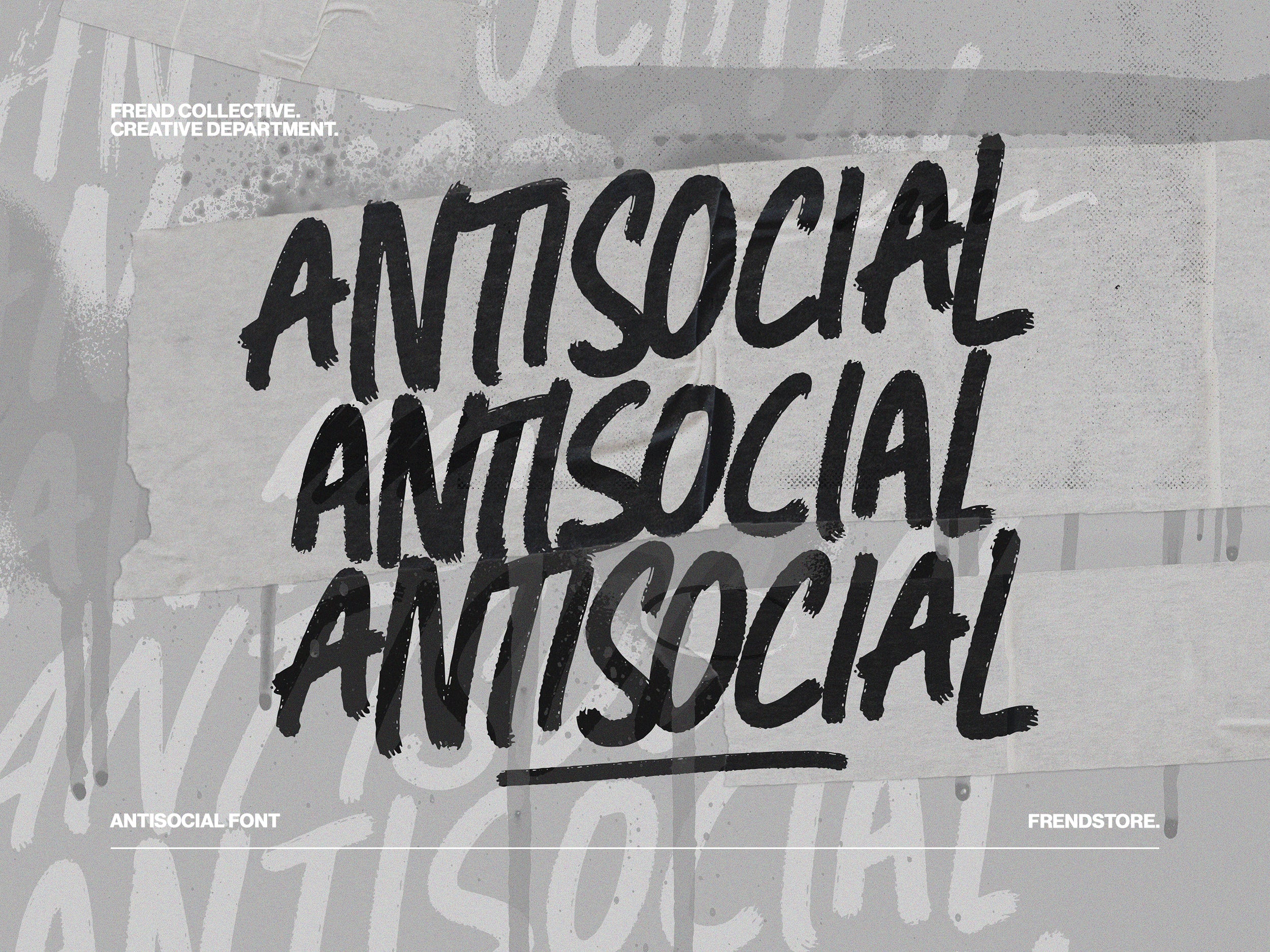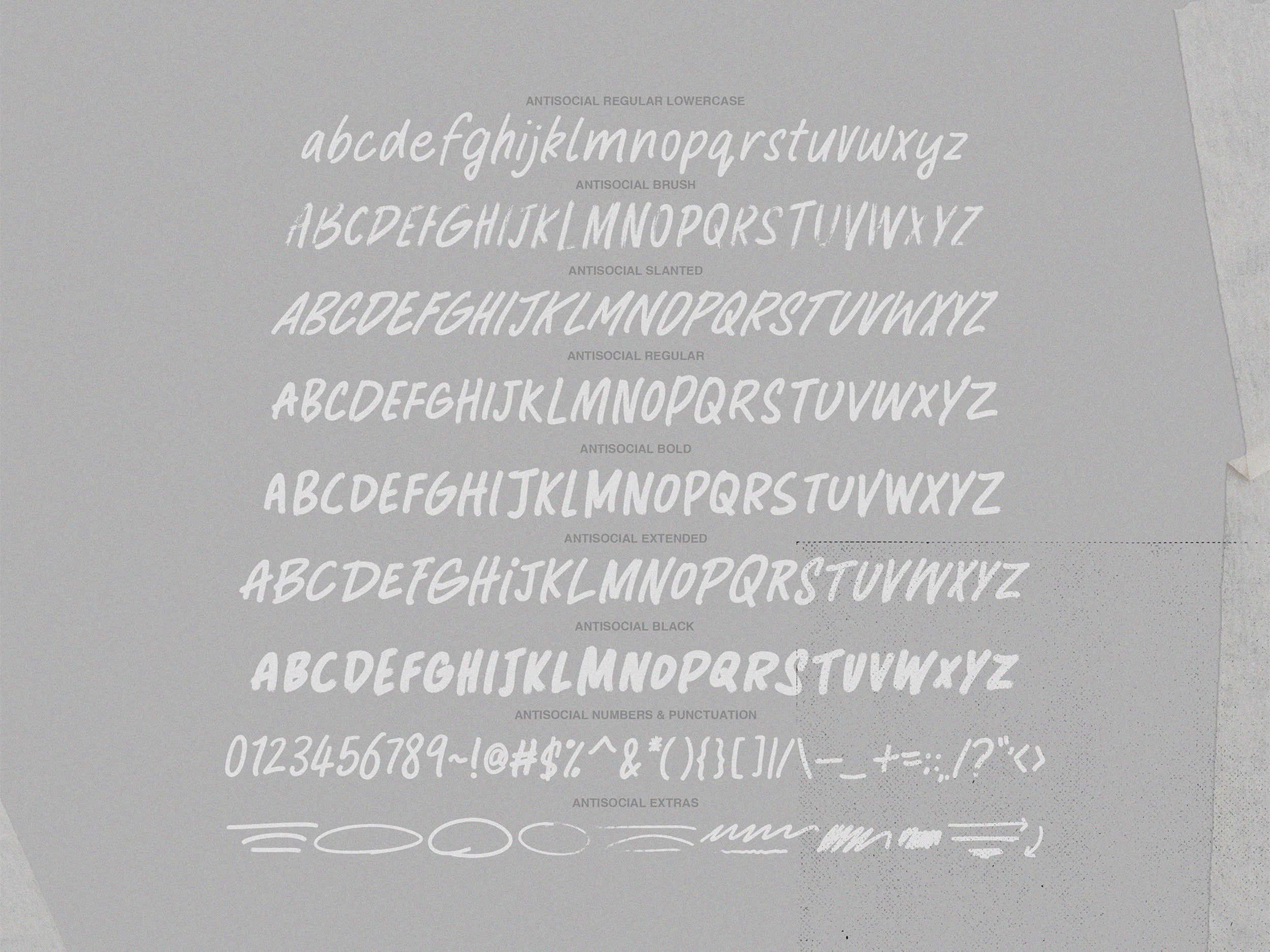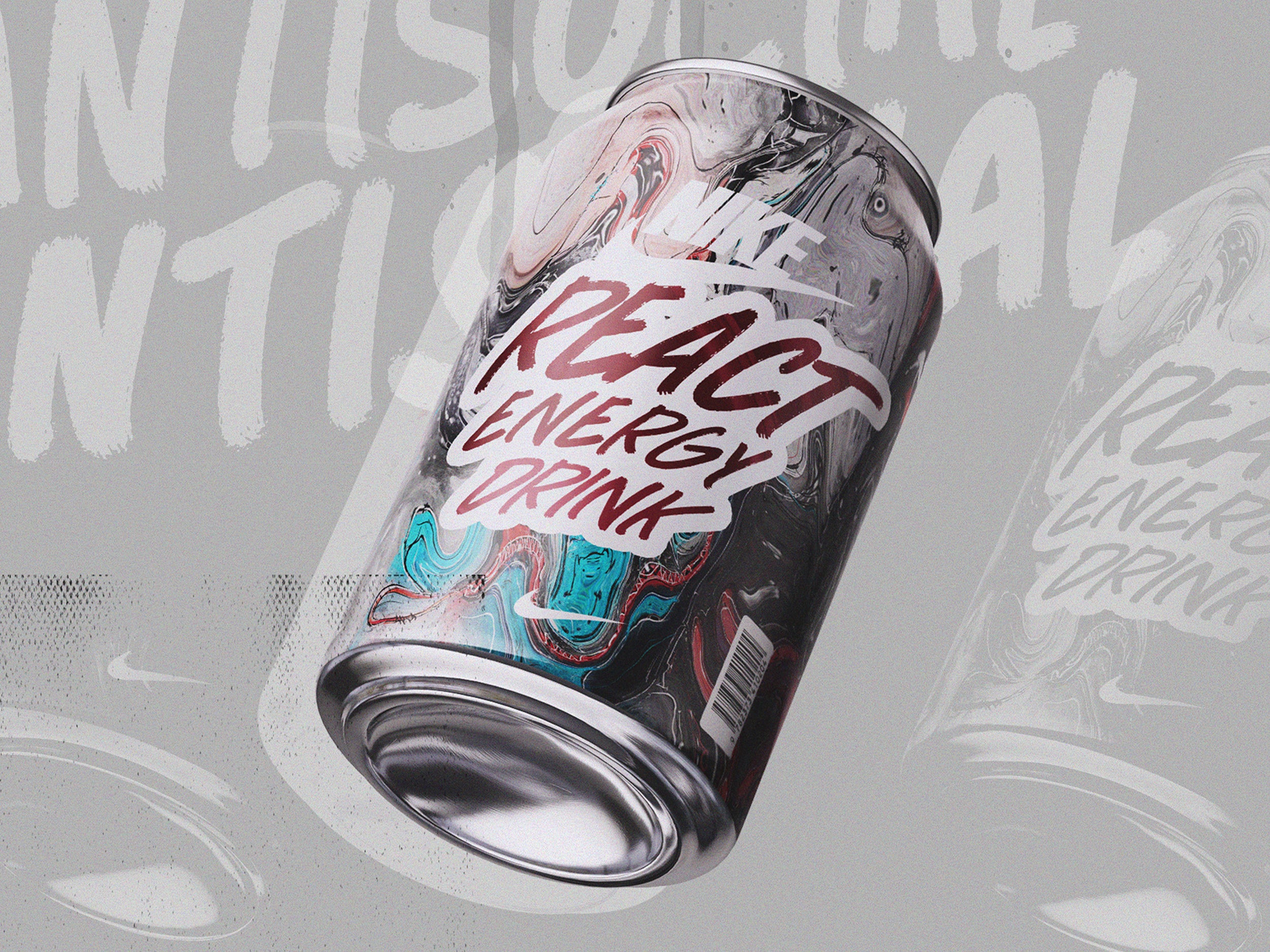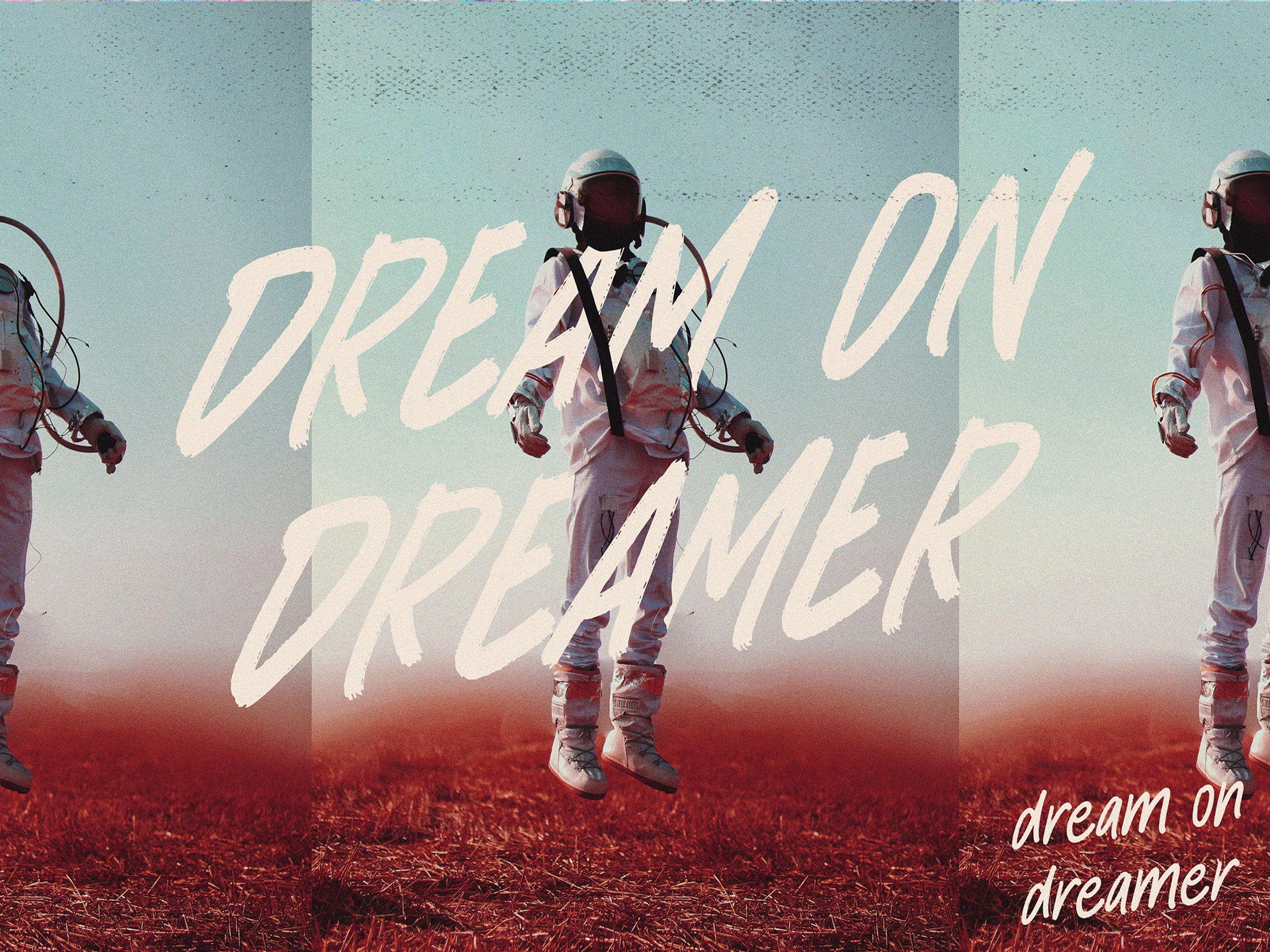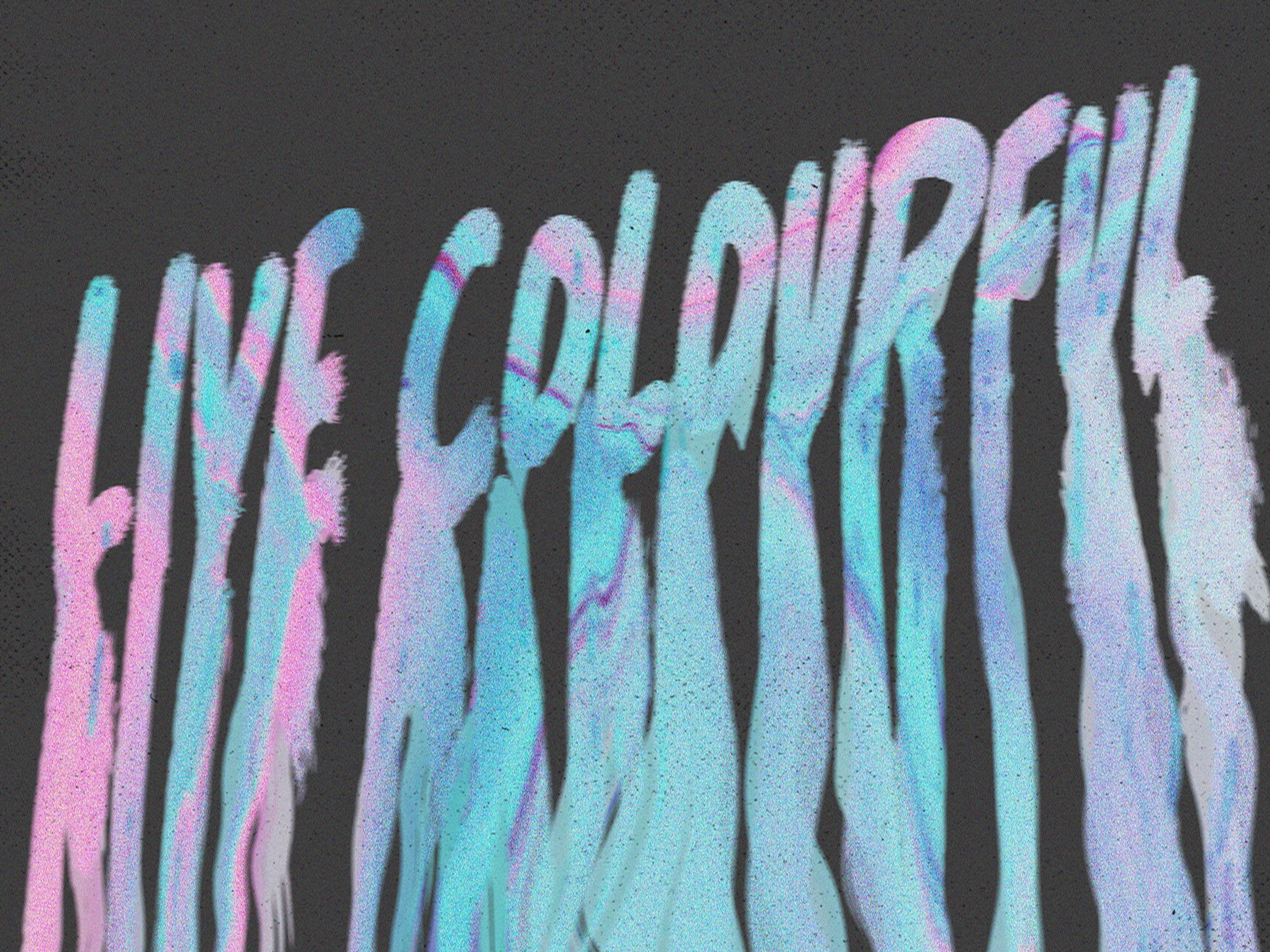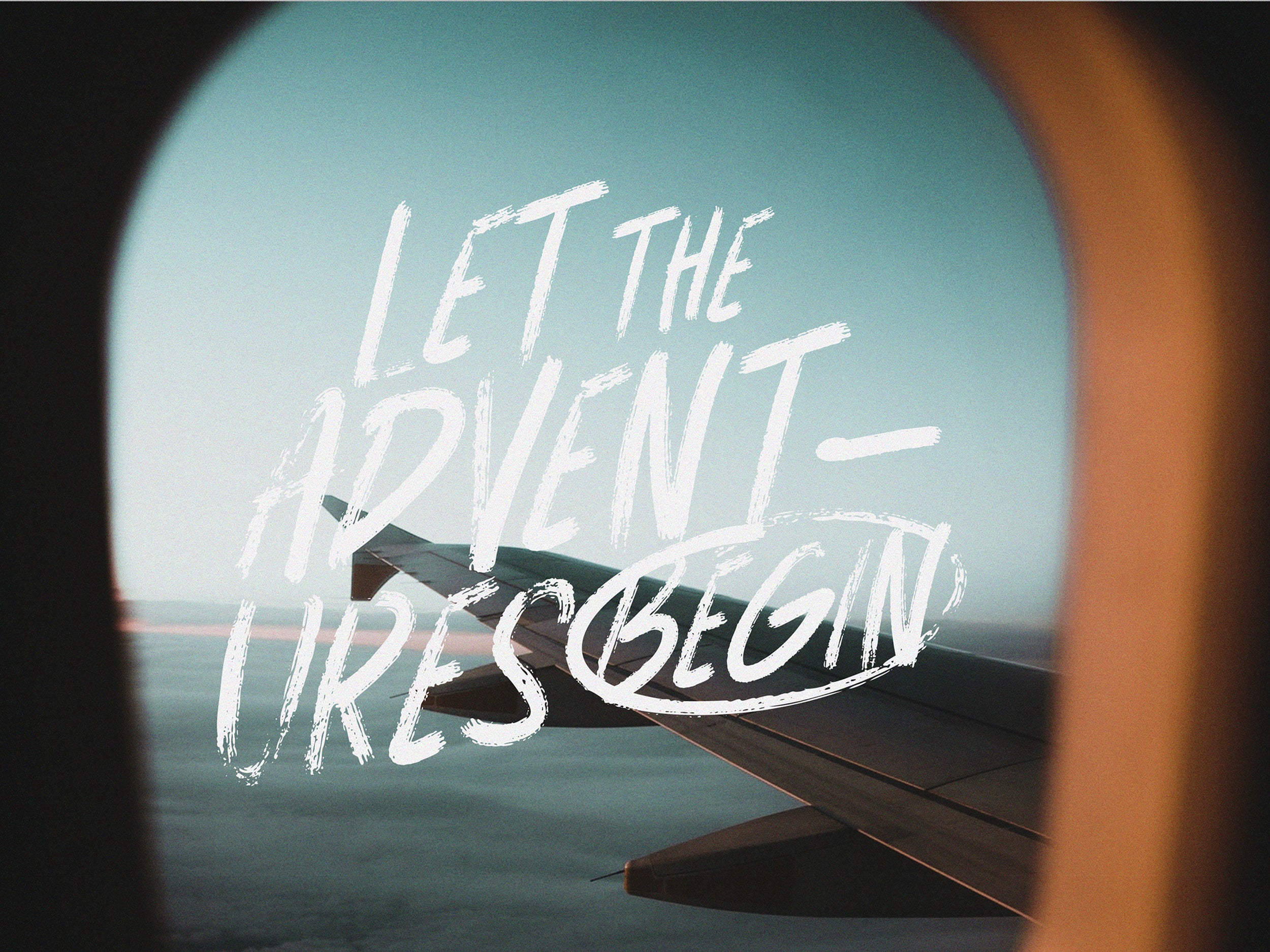
ANTISOCIAL FONT
Introducing Antisocial Font Collection.
Antisocial font collection includes 6x handwritten fonts + Extras in different styles and variations, this font is perfect for any project. the Antisocial font family emulates a quick handwritten note or script that gives you the impression it has been hand written.
Includes: Antisocial Regular + Lowercase + Numbers + Punctuation + Extras. | Antisocial Bold. | Antisocial Black. | Antisocial Extended. | Antisocial Slanted. | Antisocial Brush.
Features: All Caps Fonts + Variations. Lowercase, Numerals, Punctuations & Extras (Regular Only).